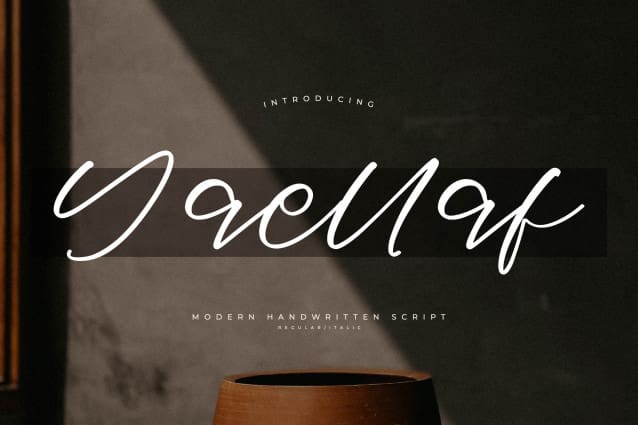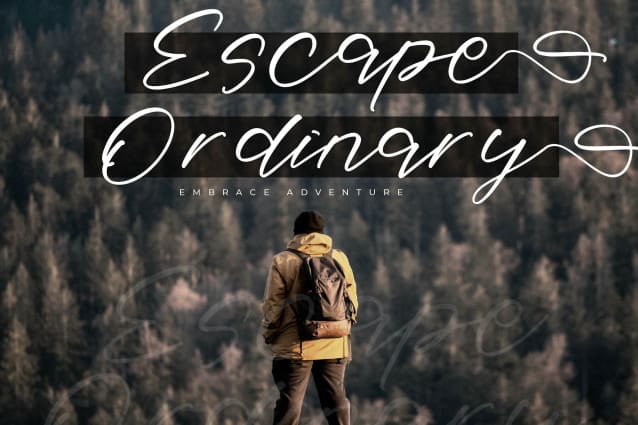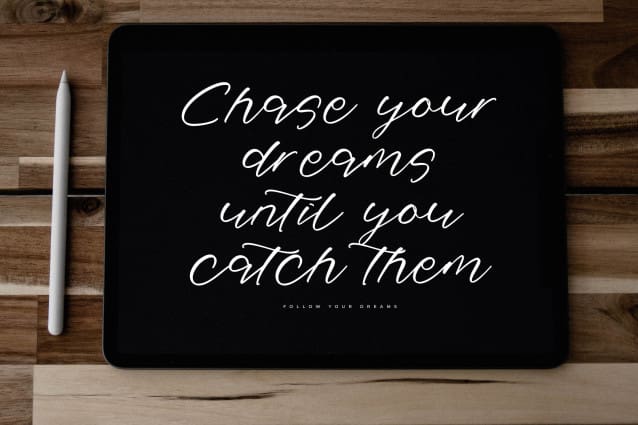
Yaellaf Handwritten Font
Yaellaf Handwritten Font – Modern Handwritten Script , from Letterena, is a Luxury Script font, suitable for any projects such as: logos, branding projects, homeware designs, product packaging, mugs, quotes, posters, shopping bags, t-shirts, book covers, name card, invitation cards, greeting cards, label, photography, watermark, special events, and all your other luxury and beautiful projects that need a Luxury serif taste.